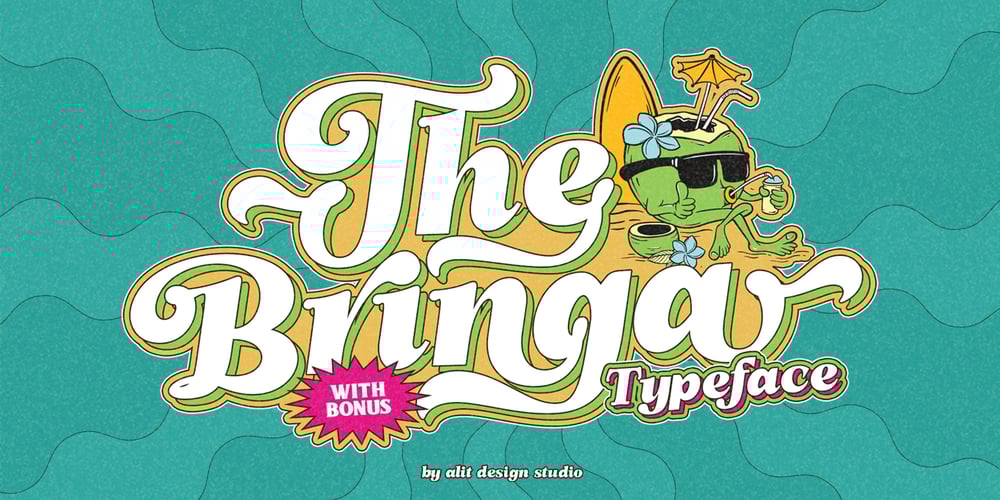
The Bringa Font Family was designed by Alit Suarnegara and published by Alit Design. The Bringa contains 1 styles and family package options. Presenting the ✨The Bringa Typeface✨ by alitdesign.The Bringa Typeface is inspired by stylish designs from the 80s to 90s. At that time the font style like “The Bringa Typeface” had a firm and trendy impression. The Bringa Typeface has a wide selection of alternative characters and swashes that make it easy to create bold retro-style designs.The Bringa Typeface is very suitable for making designs with retro concepts, simple and playful designs, for example making magazine cover designs, music covers, YouTube thumbs, text headers, logotypes and so on with an elegant retort theme. Besides that this font is very easy to use both in design and non-design programs because everything changes and glyphs are supported by Unicode (PUA).The Bringa Typeface has a total of 786 glyphs including symbol, multilingual and alternative glyphs.We really enjoyed the process of making The Bringa Typeface, we hope you are also happy when using The Bringa Typeface.Language Support : Latin, Basic, Western European, Central European, South European,Vietnamese.In order to use the beautiful swashes, you need a program that supports OpenType features such as Adobe Illustrator CS, Adobe Photoshop CC, Adobe Indesign and Corel Draw. but if your software doesn’t have Glyphs panel, you can install additional swashes font files.